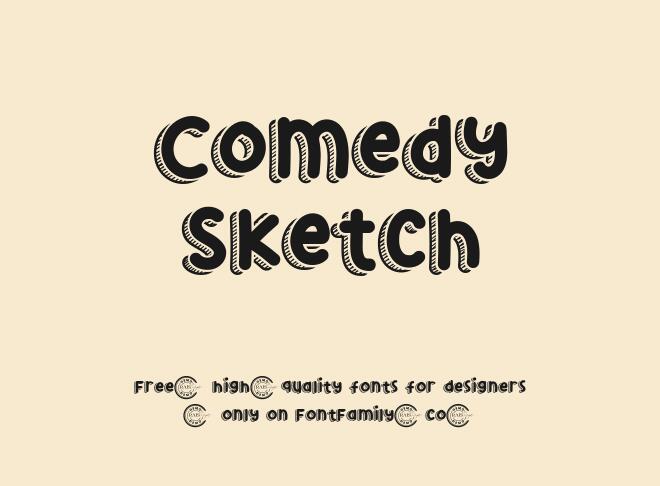
Comedy Sketch Font
Comedy Sketch Font is a playful, comic-style typeface, perfect for designers looking to add a touch of humor and whimsy to their work. Its unique design is reminiscent of hand-drawn comic book lettering, making it a fantastic choice for projects related to children's literature, animation, and entertainment. While its aesthetic is fun and lighthearted, Comedy Sketch Font doesn't compromise on readability. Its clear, bold lines are easy to read at any size, making it versatile for both print and digital media. Compared to other comic-style fonts, Comedy Sketch Font stands out due to its distinct character and charm. Whether you're designing a hilarious greeting card or a vibrant website, this font is guaranteed to make your content pop and engage your audience in a delightful way.